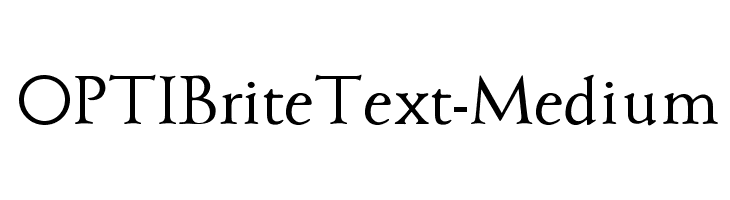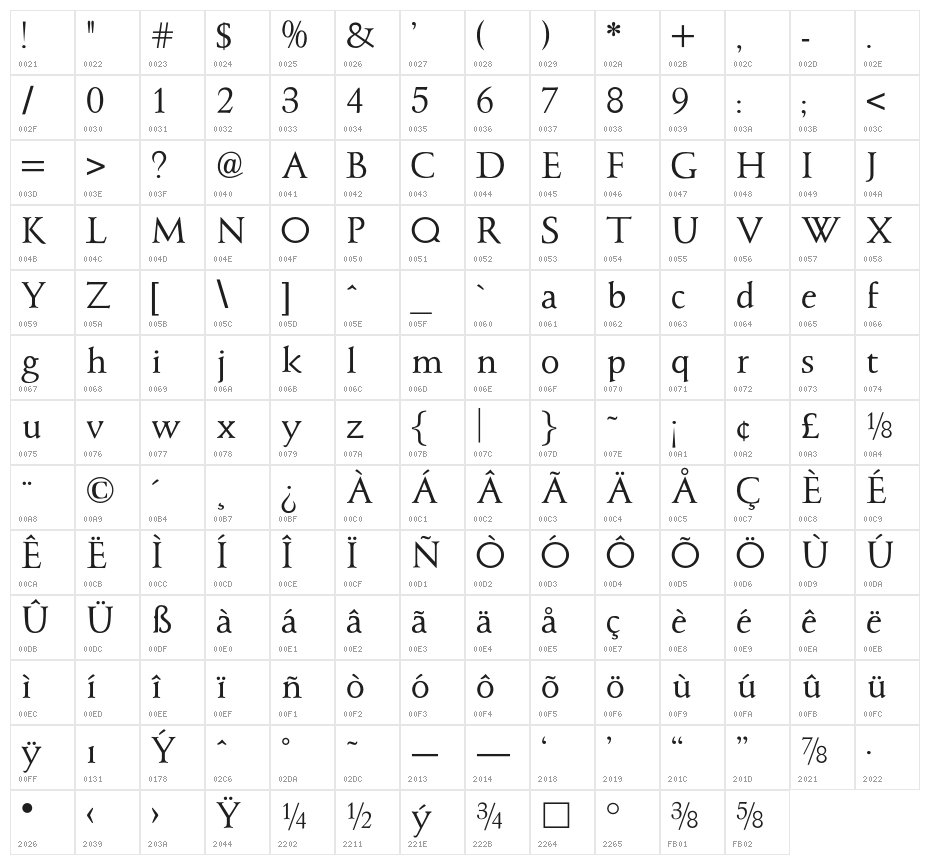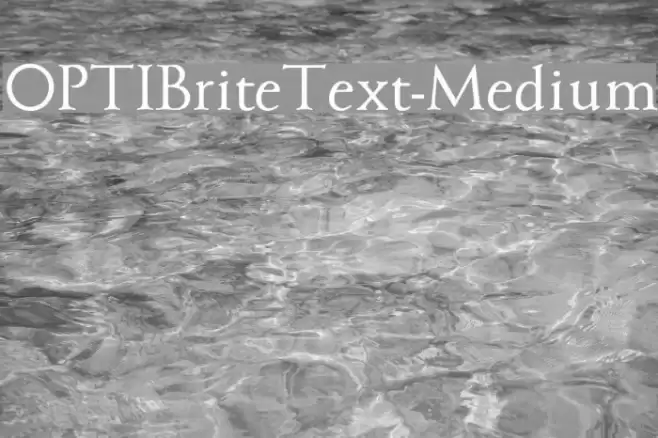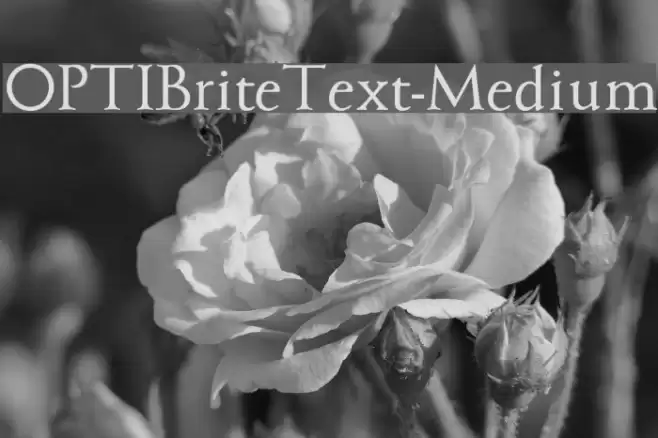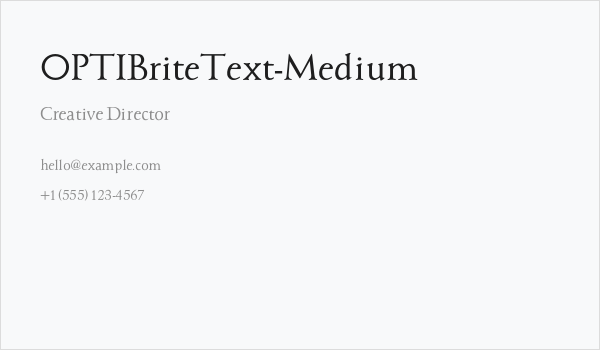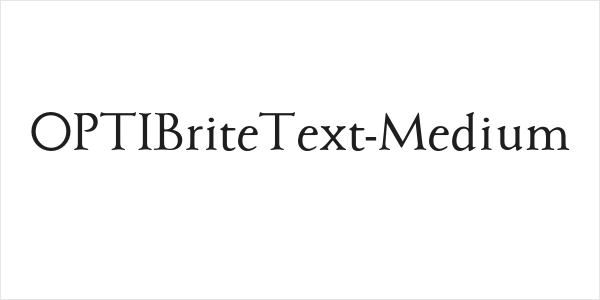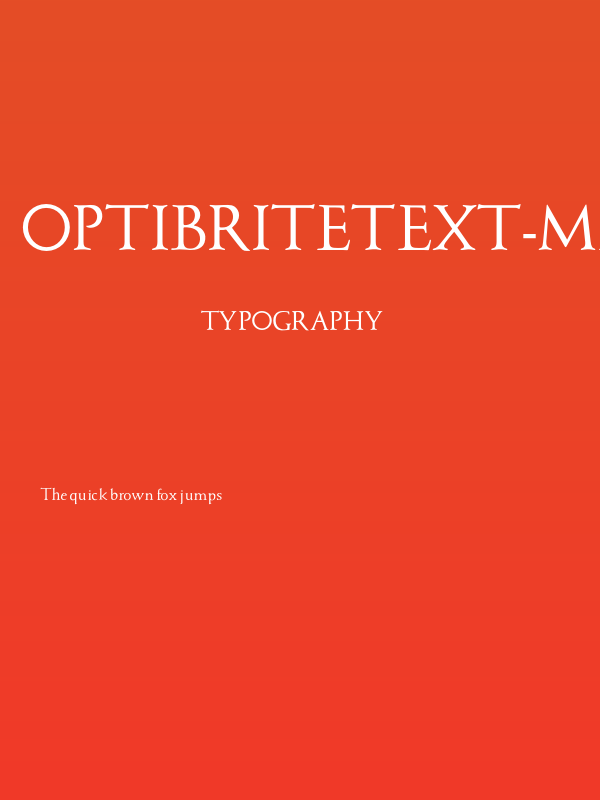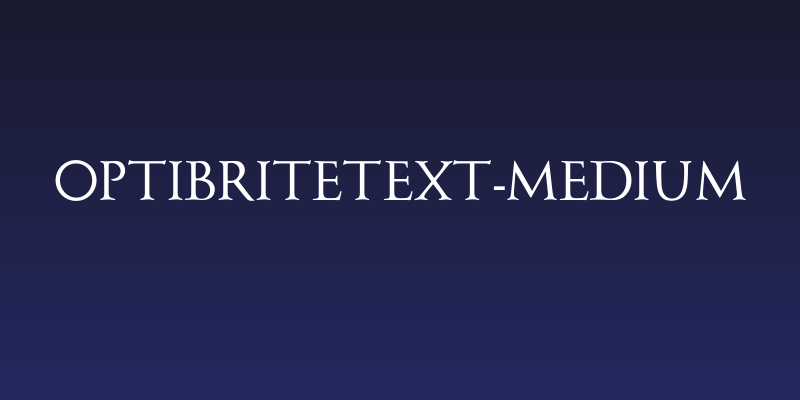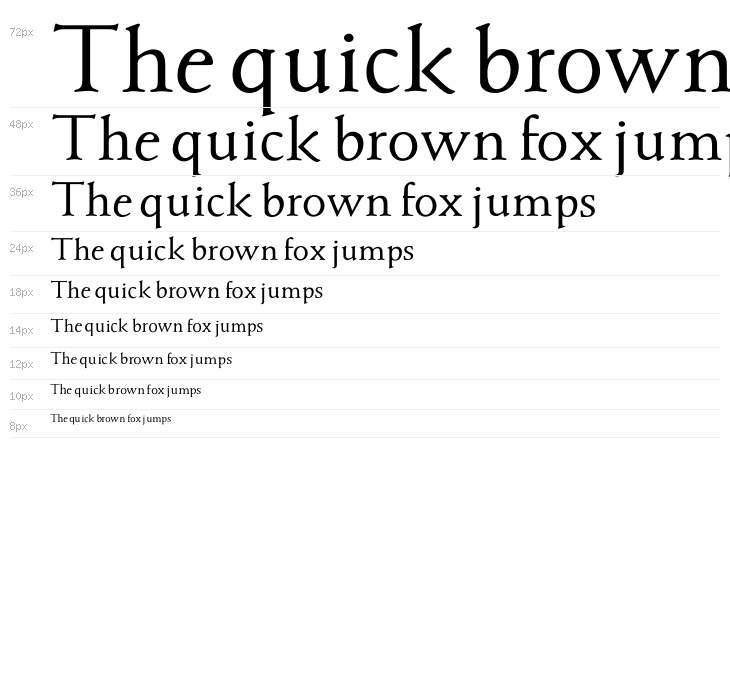
OPTIBriteText-Medium Font
OPTIBriteText-Medium Description
This typeface features a classic serif design with elegant and refined strokes. The uppercase letters exhibit a strong presence with slightly flared serifs, while the lowercase letters maintain a consistent style with smooth curves and balanced proportions. The numerals are clear and distinct, ensuring readability. Special characters are thoughtfully designed to complement the overall aesthetic. The font's medium weight provides a harmonious balance between boldness and subtlety, making it versatile for various applications.
| Proposed Projects | Ideal for editorial design, book covers, formal invitations, and branding projects that require a touch of sophistication. |